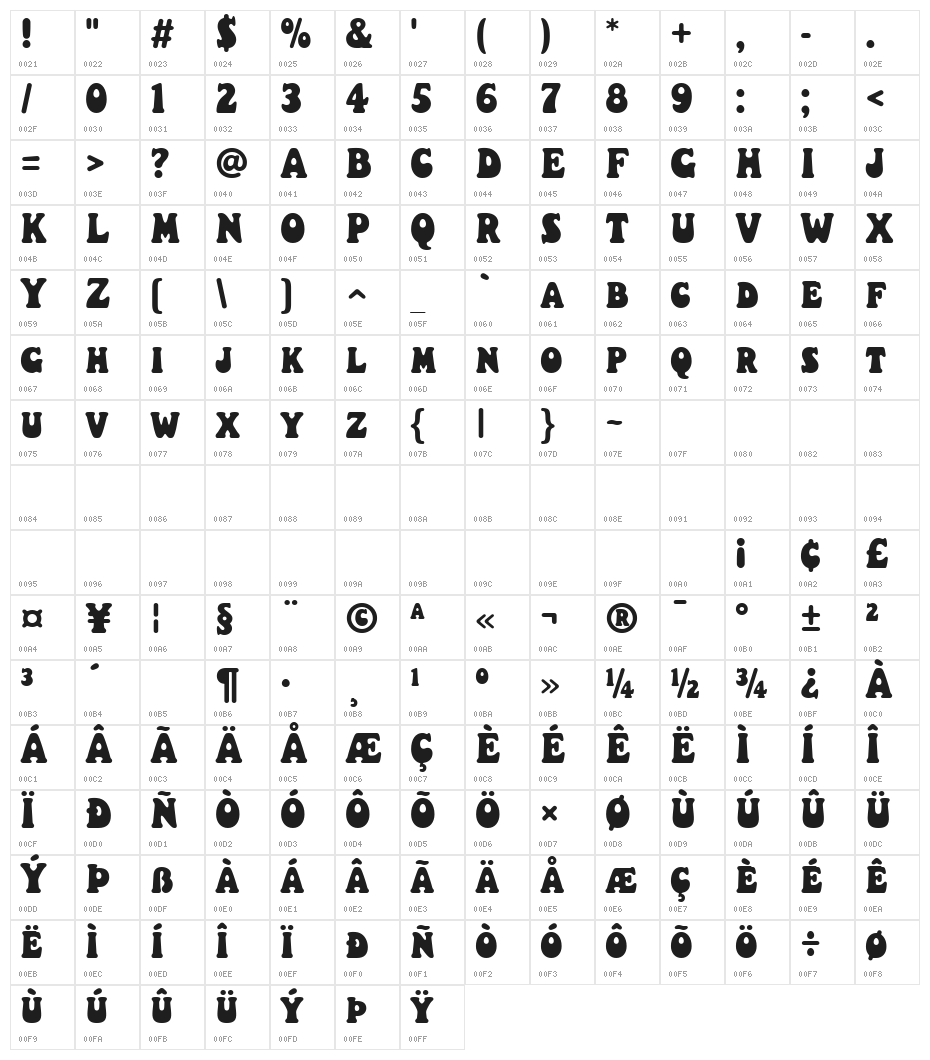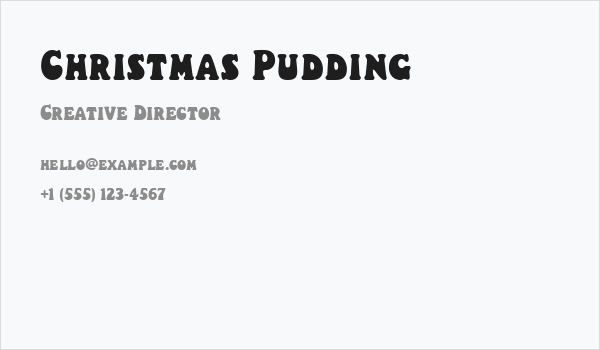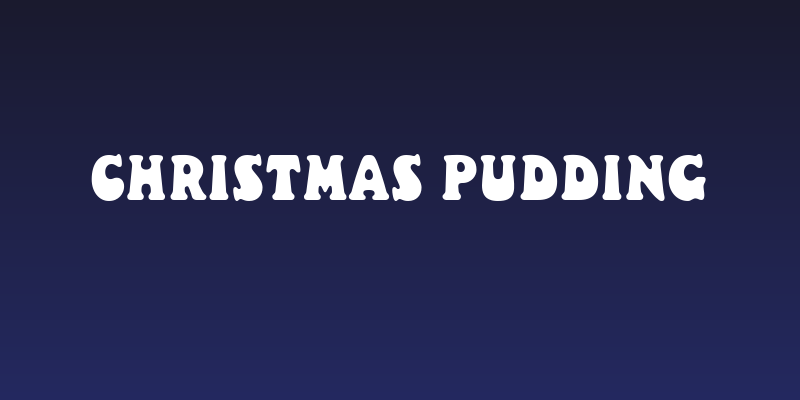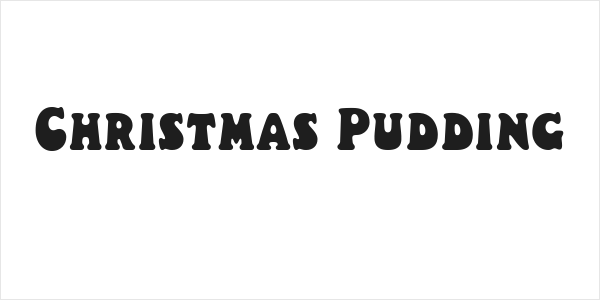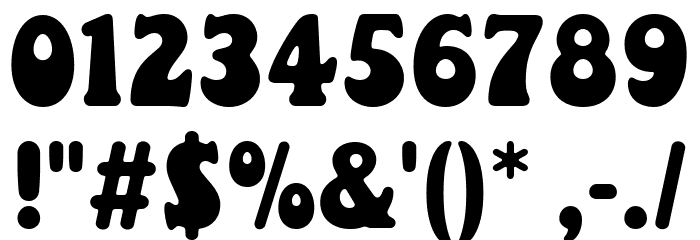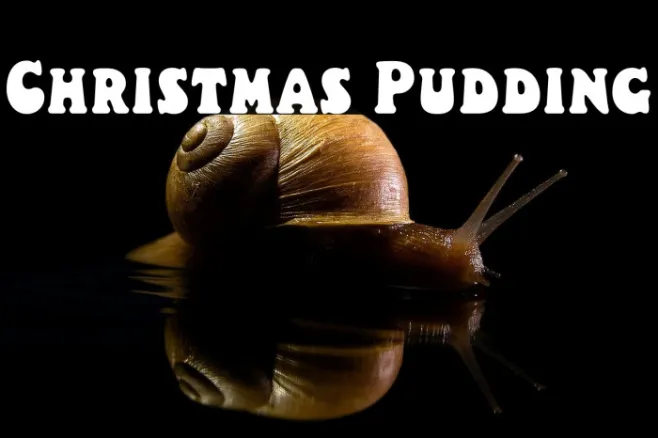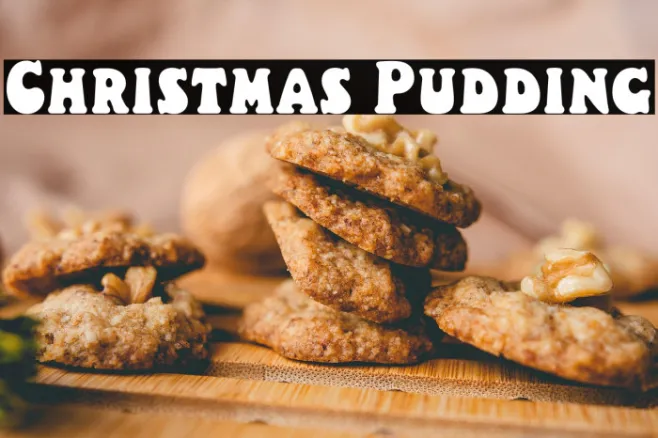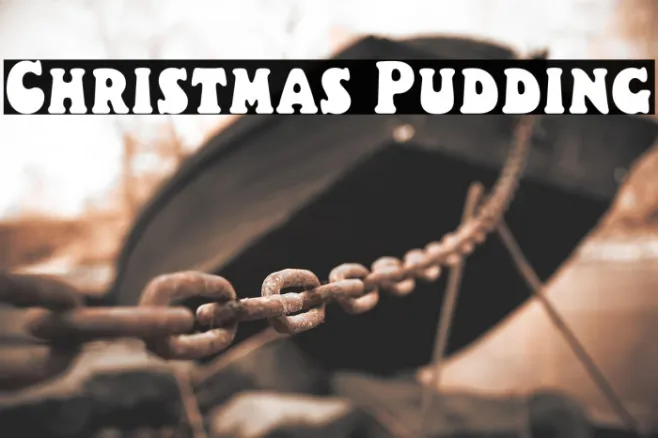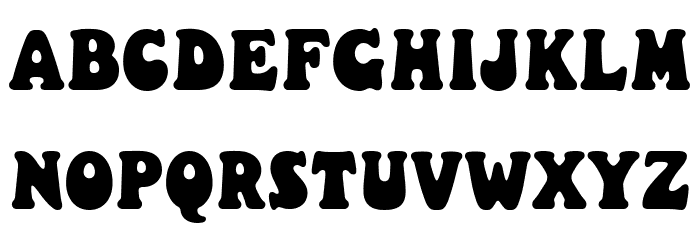
Christmas Pudding Font
Christmas Pudding Description
This font features a playful and bold design, characterized by its thick, rounded strokes and whimsical curves. The letters have a consistent weight, giving them a robust and solid appearance. The style is reminiscent of festive and cheerful themes, making it ideal for holiday-related projects. The characters are well-spaced, ensuring readability while maintaining a fun and lively aesthetic. The numbers and special characters follow the same design principles, adding to the cohesive look of the font.
| Proposed Projects | Ideal for holiday cards, festive banners, children's book covers, and playful branding. |